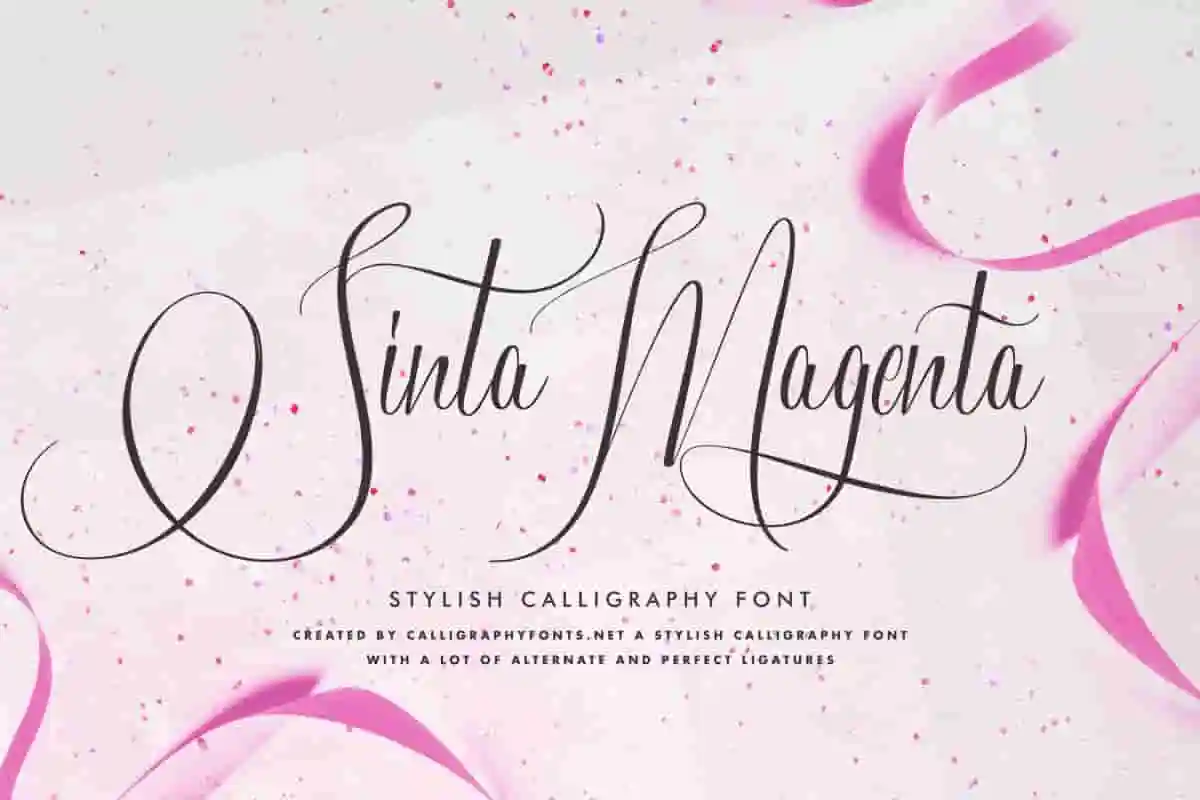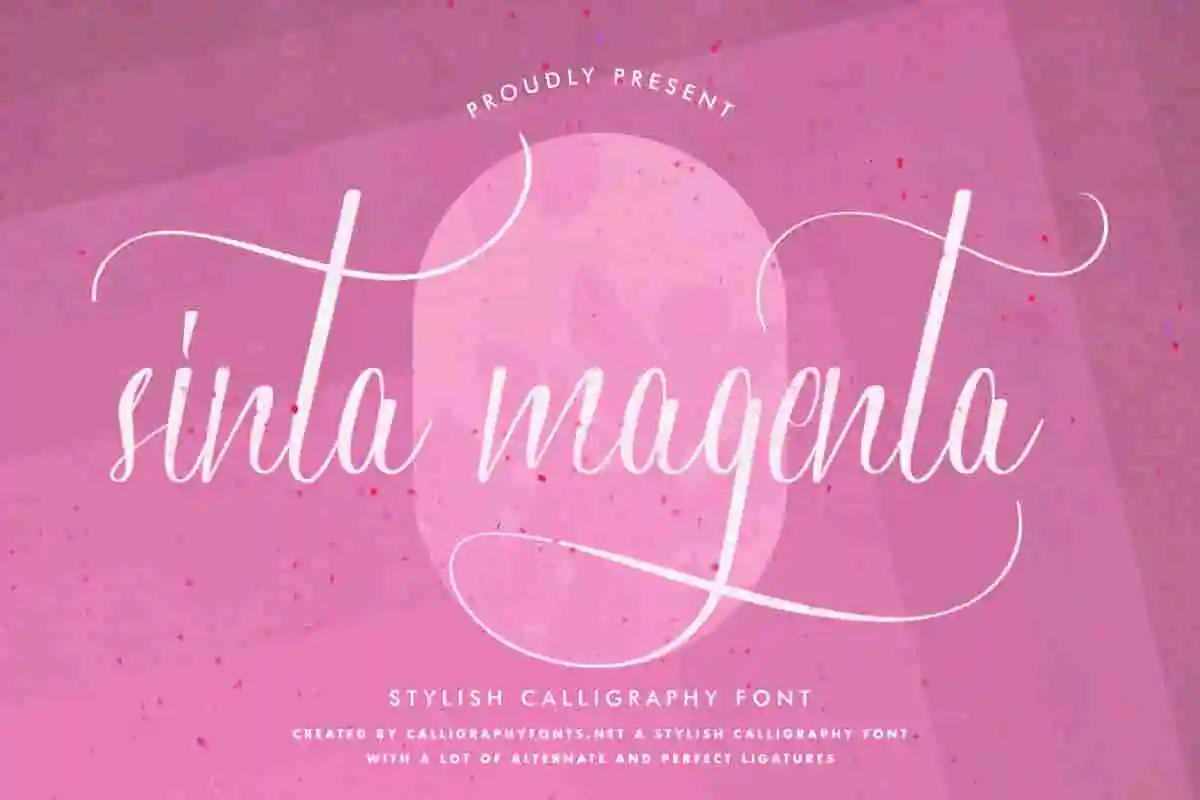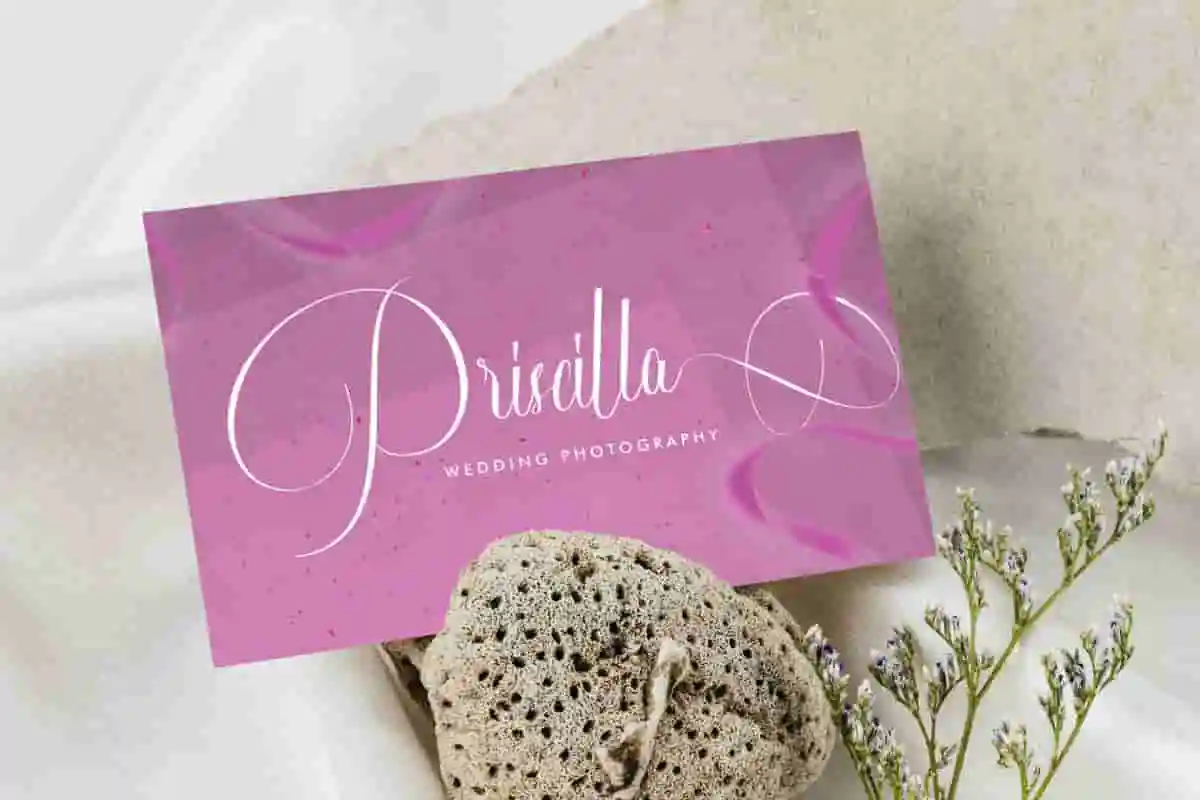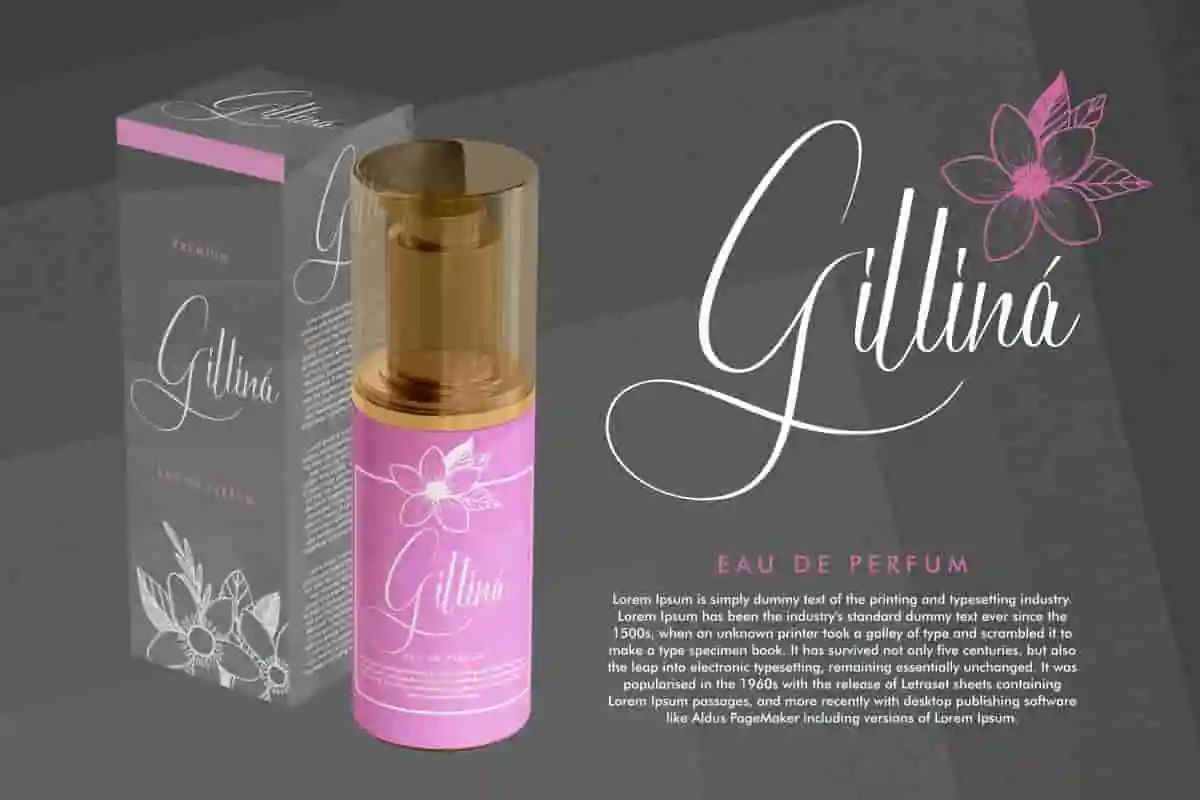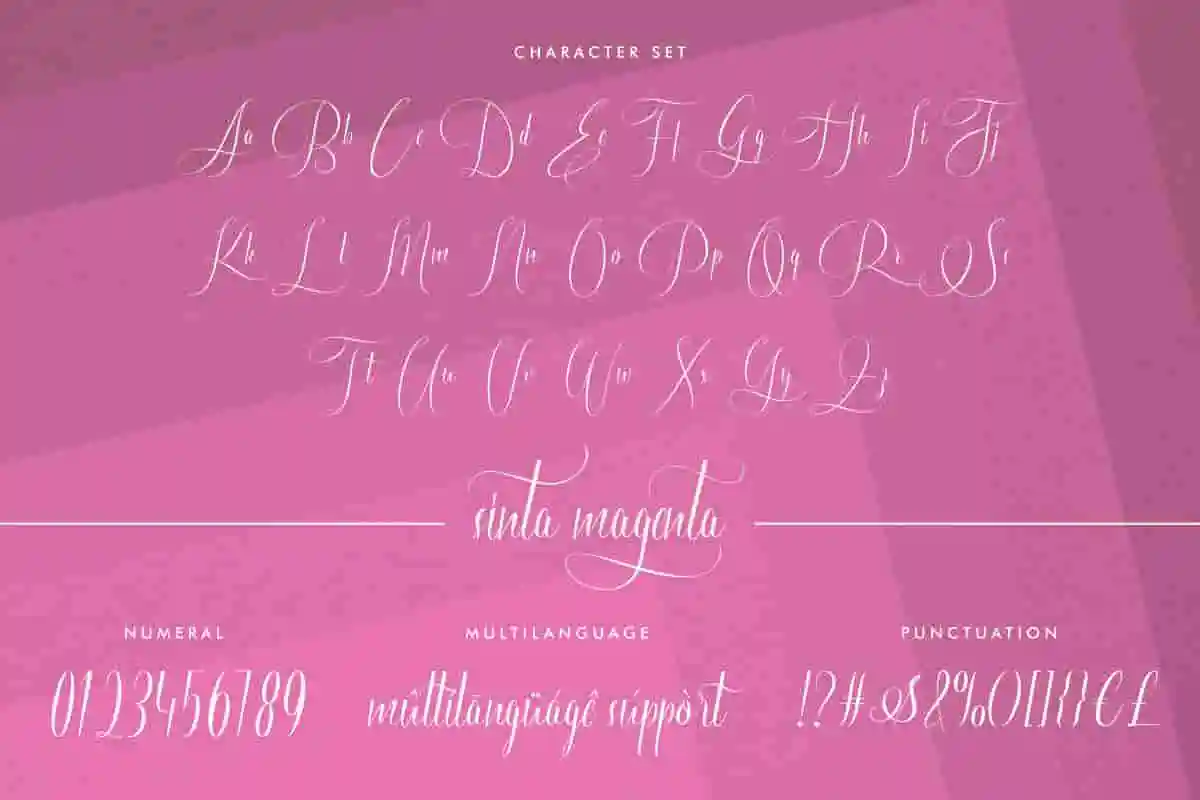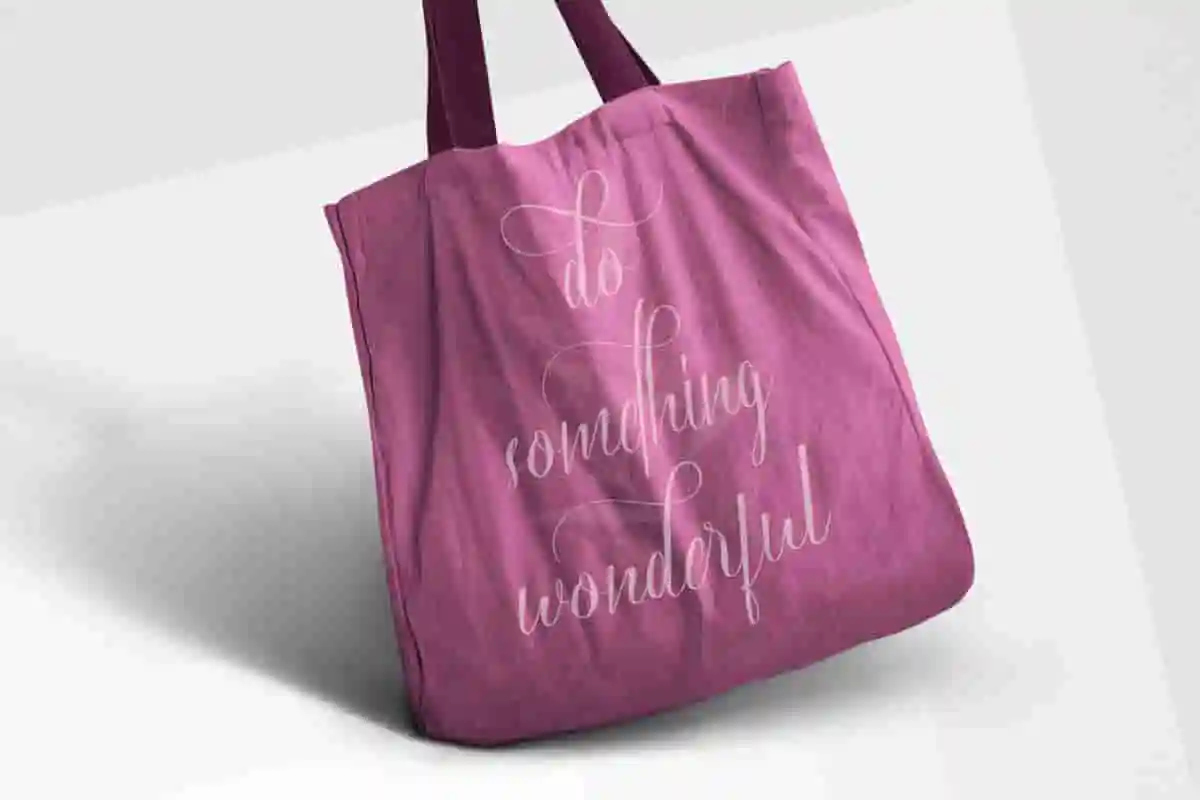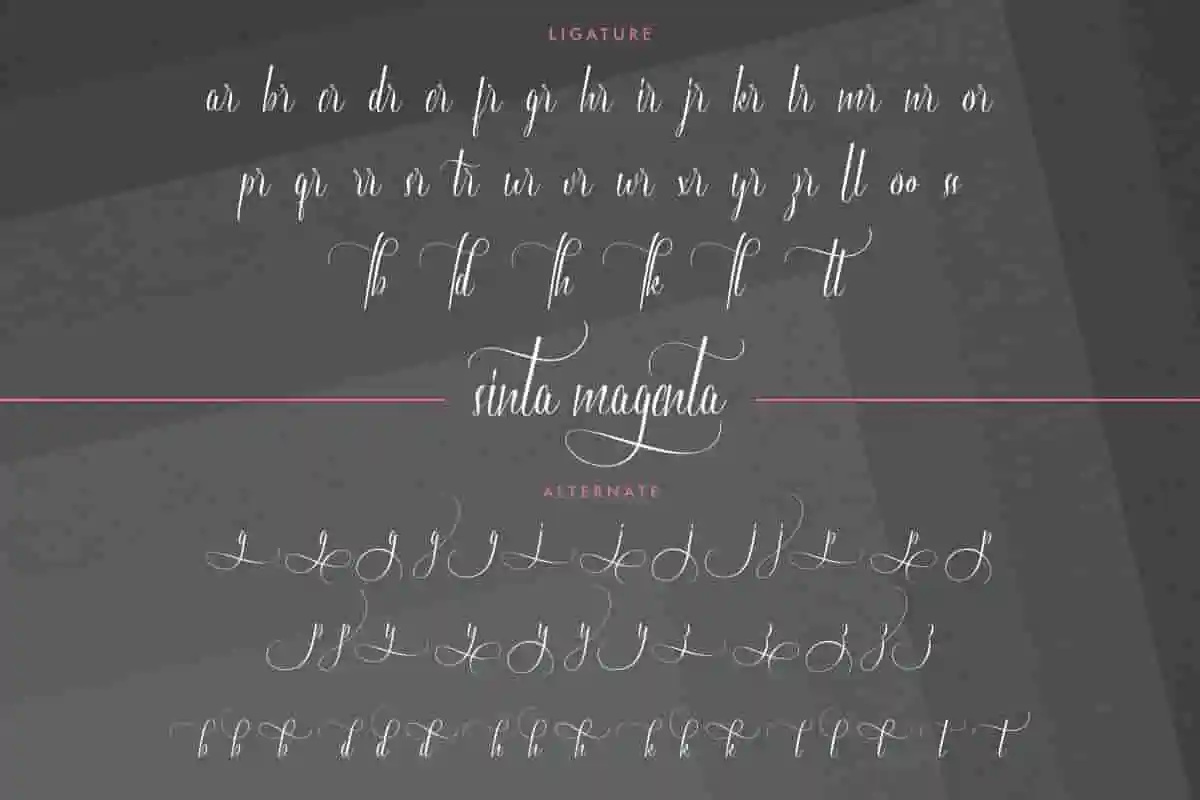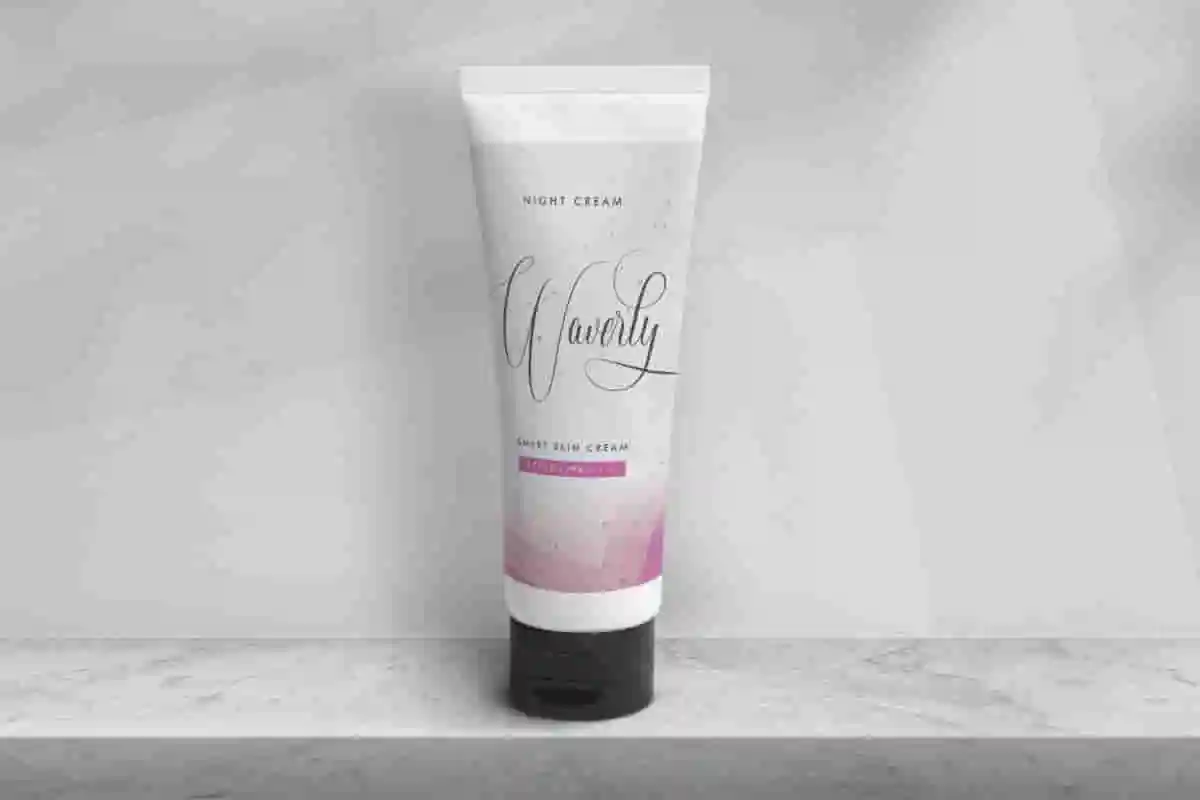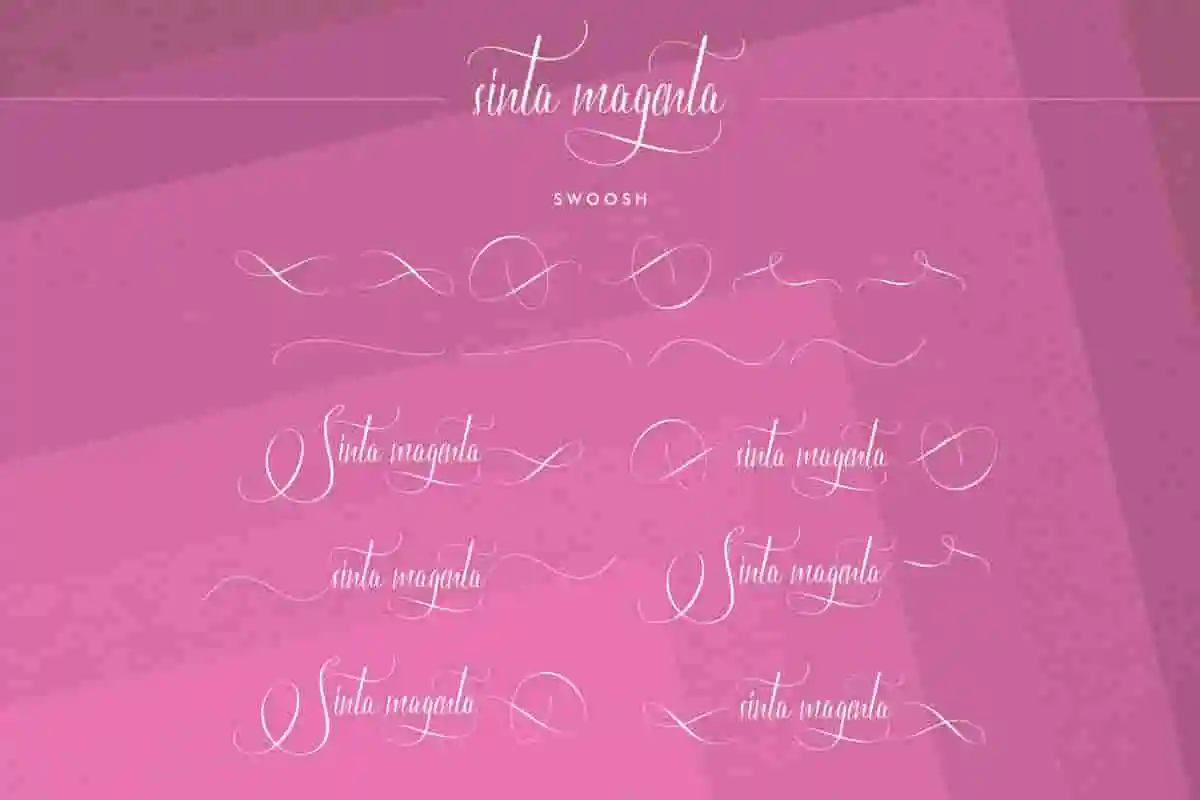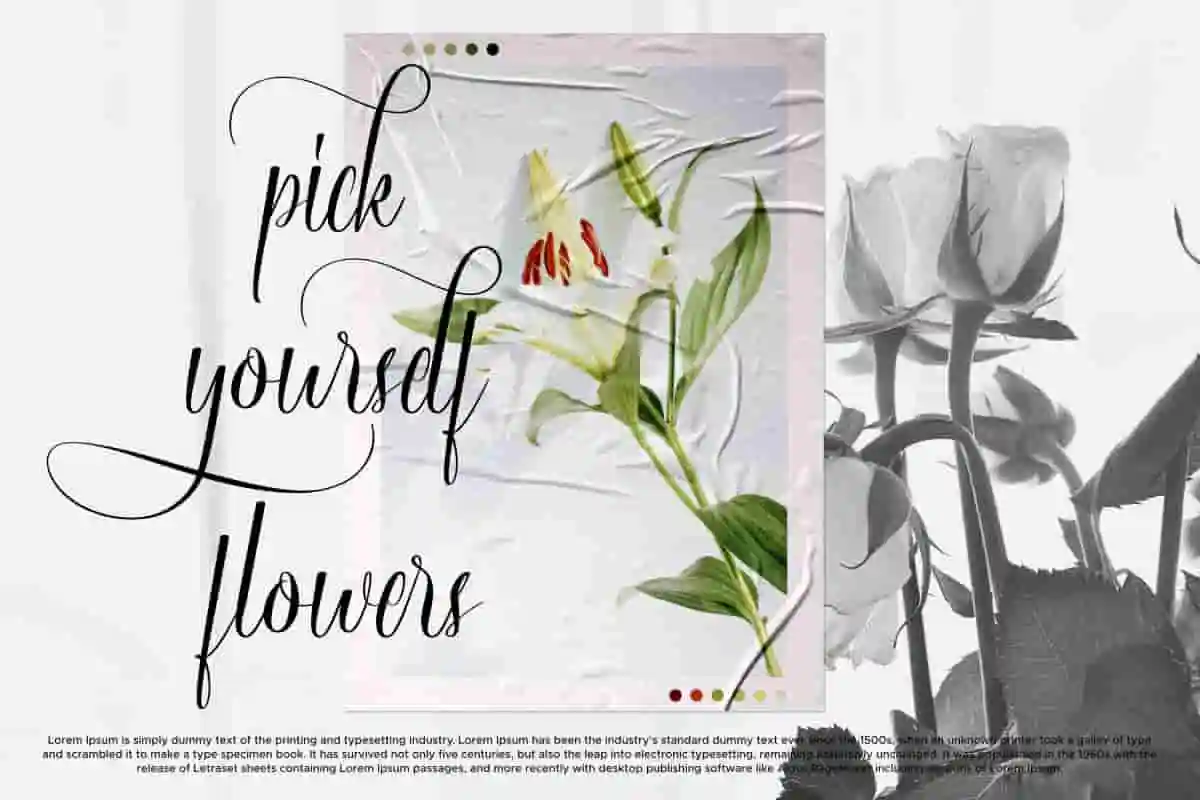
Sinta Magenta Font
Sinta Magenta Font is a stunning calligraphy script font by CalligraphyFonts.net. It will be awesome for brandings, social media, invitation, flyer, video etc
Sinta Magenta Font is a stunning Calligraphic font with exclusive characters style. The font will make your design looks elegant, luxurious and sophisticated in hand signature calligraphy style. The font will be great for brandings, invitation, promotions, tittles, headlines etc
Bring elegance and beauty to your designs with Sinta Magenta Font, a stunning handwritten script that combines graceful curves, smooth flow, and timeless charm. Perfect for creatives who want their work to look stylish, personal, and professional, this font is your go-to choice for adding a romantic touch to any project.
The handcrafted details of Sinta Magenta give your text a warm and authentic feel, making it ideal for wedding invitations, logos, product packaging, greeting cards, and social media graphics. With its high readability, it works wonderfully for both big, bold headlines and smaller text.
When your project needs a beautiful, romantic, and memorable font, Sinta Magenta is the perfect choice.